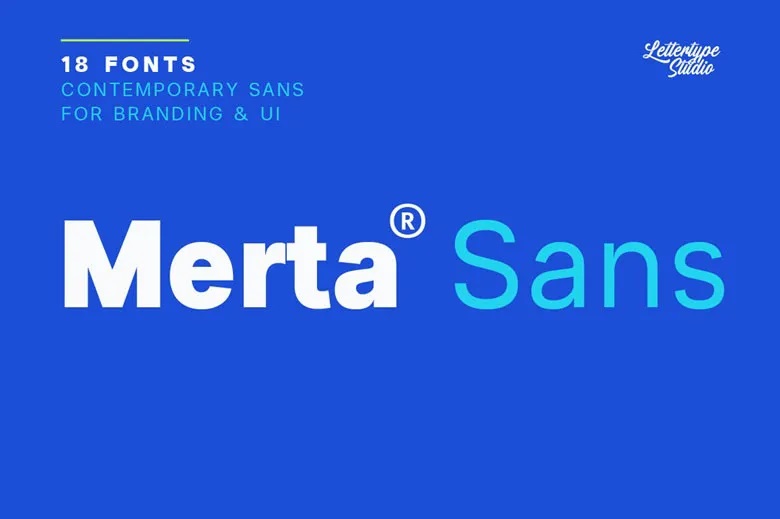
Merta Sans Font Family
Merta Sans was created for designers who work in fast-paced, product-focused settings. If you design SaaS platforms, startup brands, or user interfaces, this typeface fits smoothly into today’s workflows. Merta Sans stands out from strict neo-grotesk fonts by offering a friendlier, more approachable look with its balanced curves and structure.
It’s a clean, modern sans serif that works well in real design systems and adapts to a wide range of uses. Ideal for age. It’s a great choice for agencies, startups, tech companies, and creative teams who want typography that stays consistent across different brand materials.
Merta Sans Serif Font Family